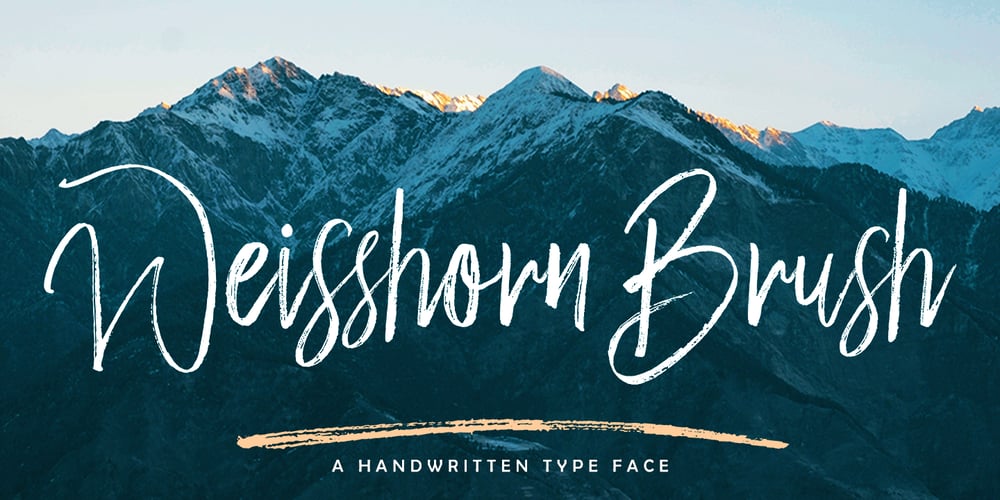
Weisshorn Brush
Weisshorn Brush font
Weisshorn Brush Font Family was designed by Iqbal Amsar Hidayat and published by Bal Studio. Weisshorn Brush contains 1 styles and family package options. Weisshorn Brush is a new brushed textured font which includes extra swashes. Perfect for brand projects, logos, product packaging, posters, invitations, greeting cards, news, blogs, everything including personal charm.